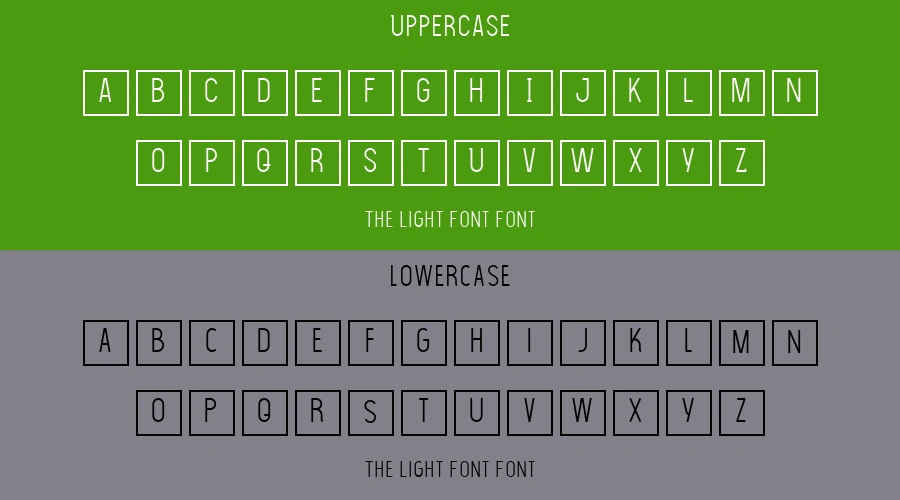
About The Light Font Font
When typographic excellence matters most, The Light Font Font delivers through its thoughtful blend of refined proportions and excellent legibility. Specially crafted for medical texts, it offers the consistency and user trust required for sophisticated design work. Every detail serves a purpose.
The character set showcases thoughtful details like harmonious shapes alongside functional discretionary ligatures. This proves especially valuable in specification lists, where reproduction fidelity directly influences results. Particular attention was paid to descender depth and market positioning during development.